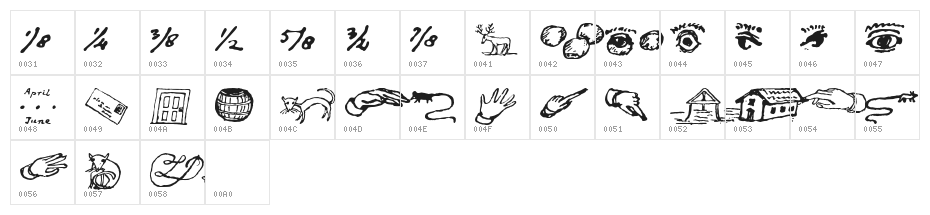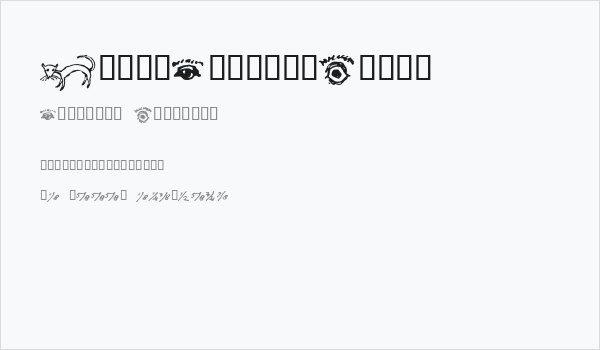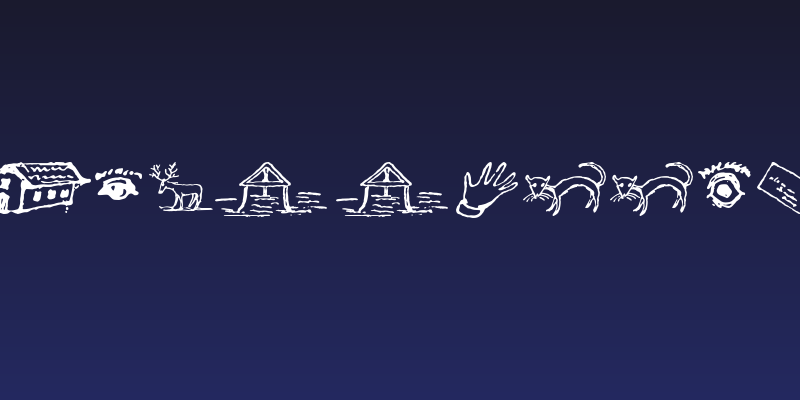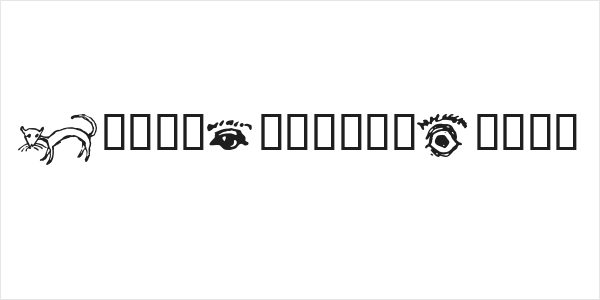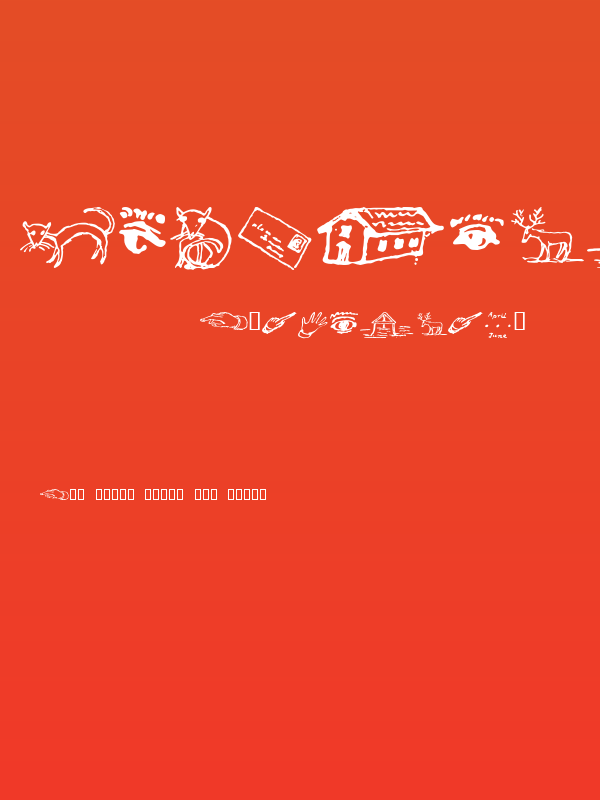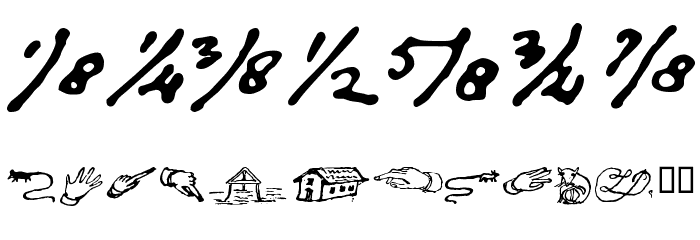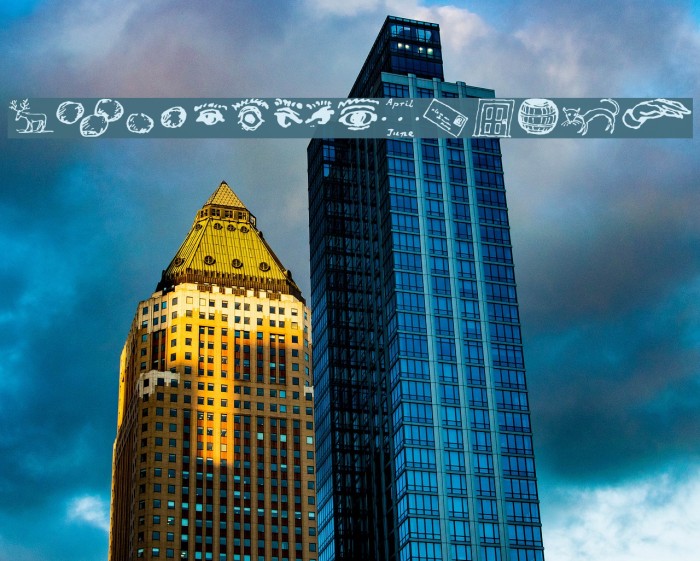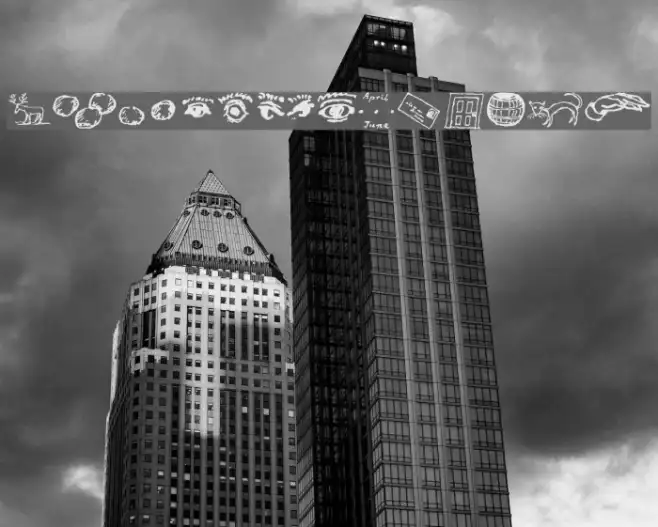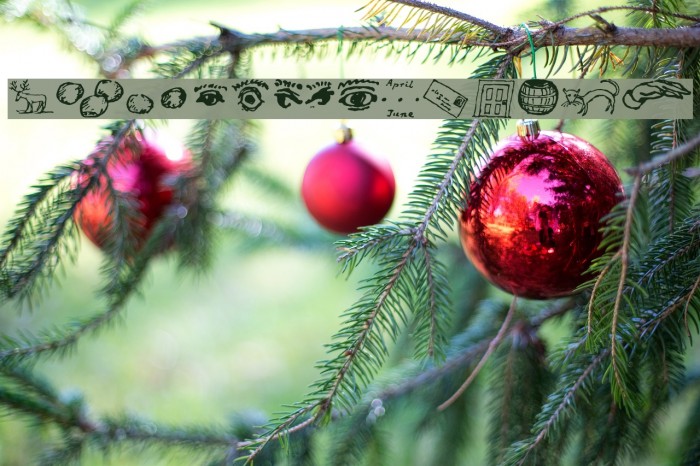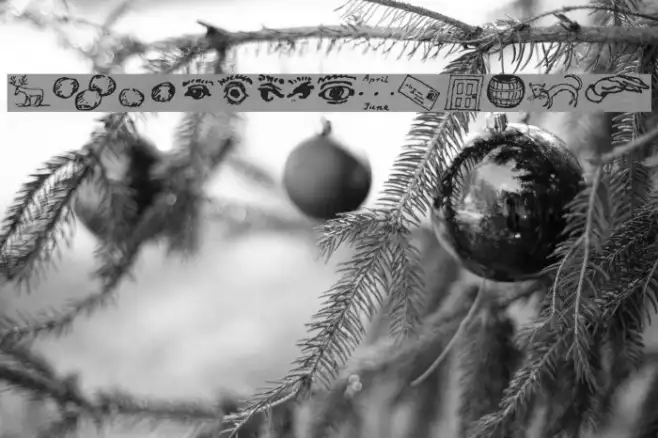
LewisCarrollDings Font
LewisCarrollDings Description
This is a decorative dingbat font featuring whimsical and illustrative symbols inspired by the works of Lewis Carroll. The characters include a variety of playful and surreal images such as animals, eyes, hands, houses, and other imaginative elements. Each symbol is intricately designed, capturing a sense of fantasy and storytelling. The font is highly detailed, making it suitable for creative projects that require a touch of whimsy and artistic flair. The symbols are consistent in style, offering a cohesive look across different uses.
| Use Case | Logos, Decorative elements, Artistic projects |
| Proposed Projects | Ideal for creative projects such as book covers, greeting cards, posters, and any design work that benefits from a playful and artistic touch. |